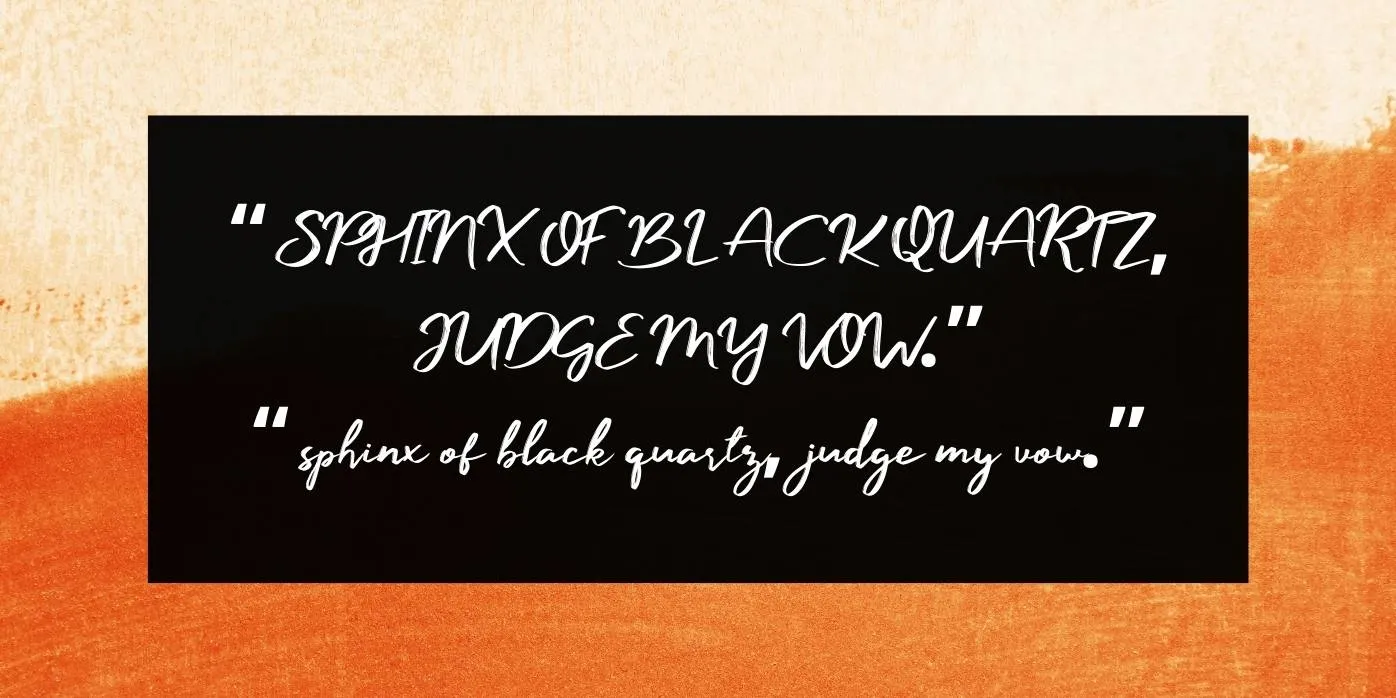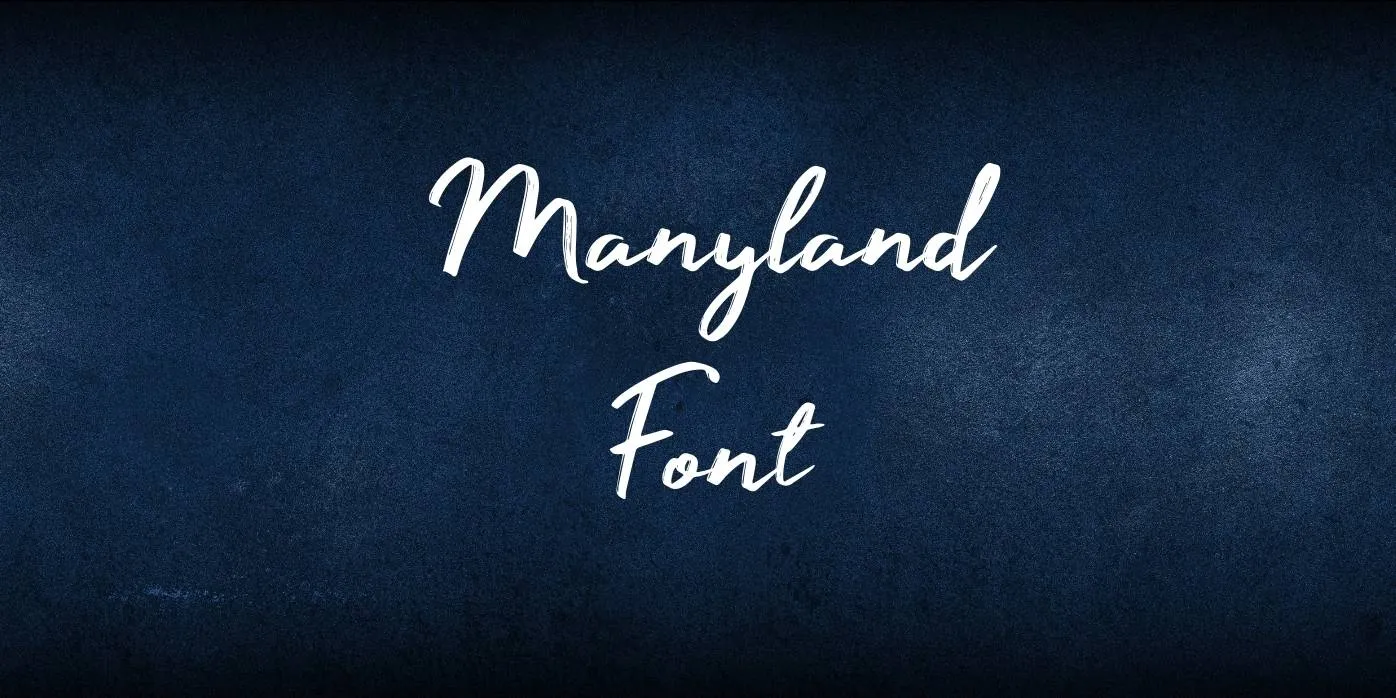
Manyland Font
Manyland Font is a script typeface designed by  Craft Supply Co. in 1957. The design is based on the dancing script typeface that dates back to 1896. This Font was created for use in advertising and display work.
The heavyweights are especially effective in headlines. The lowercase letters have long ascenders and descenders, which give the typeface a tall x-height. This makes the typeface very legible in small sizes. The glyph of this font is available in various weights and widths.
This Font is also used in Microsoft Word and Adobe Photoshop. This font has also a very pairing personality and can fit with other same categories typefaces.